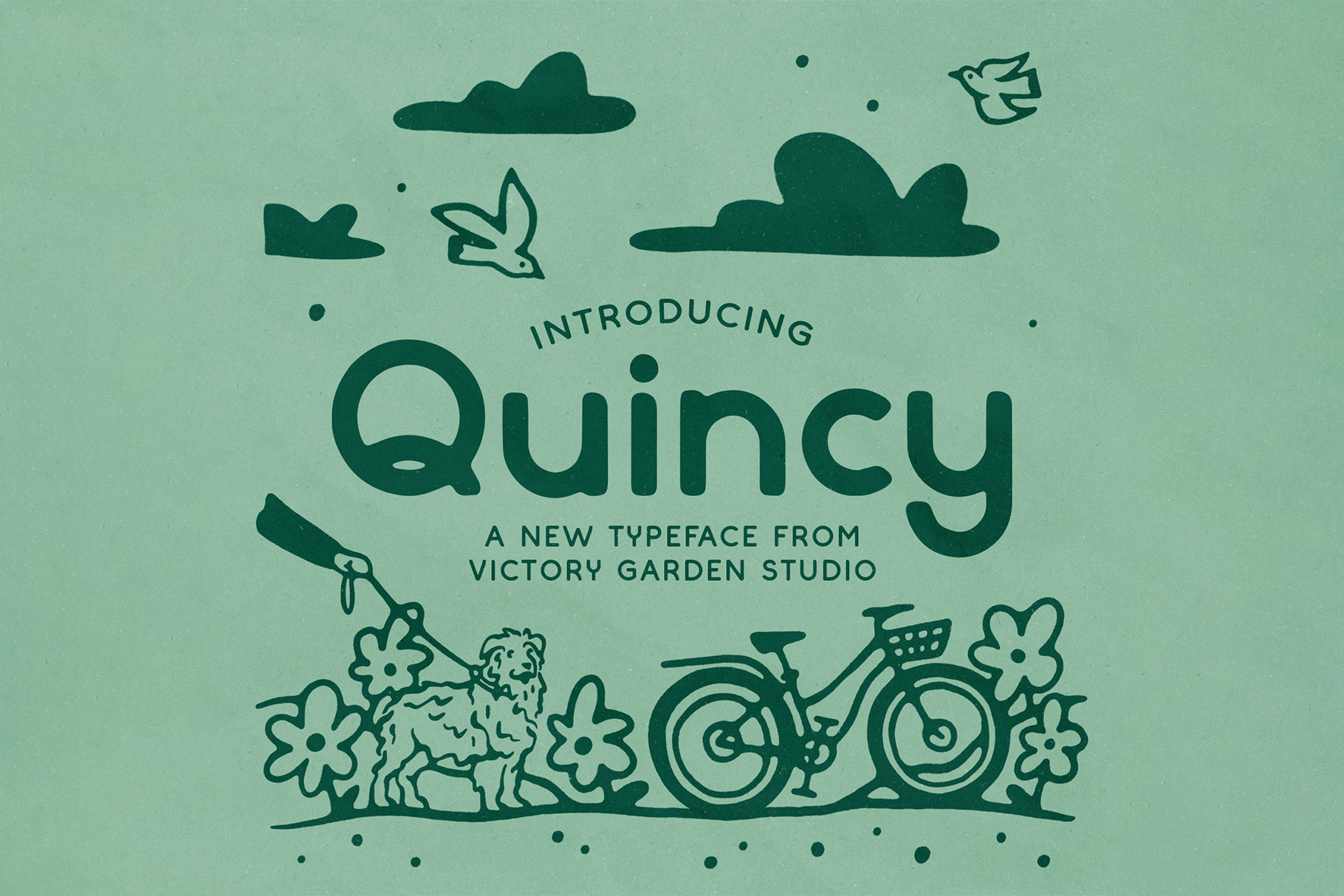
QUINCY | Playful Sans Serif Font
Introducing VG Quincy!
A playful sans serif, now with LOWERCASE LETTERS! Featuring Capital A-Z, Lowercase A-Z, Numbers 0-9, Punctuation, and Alternate Characters.